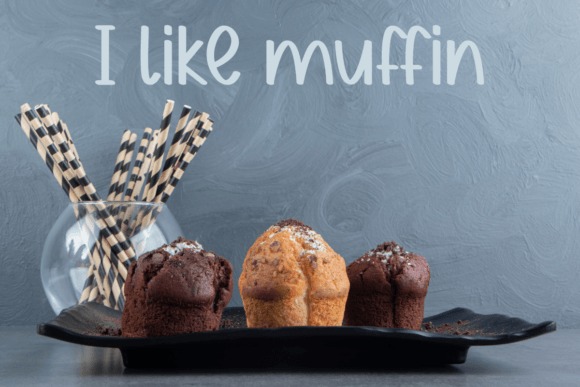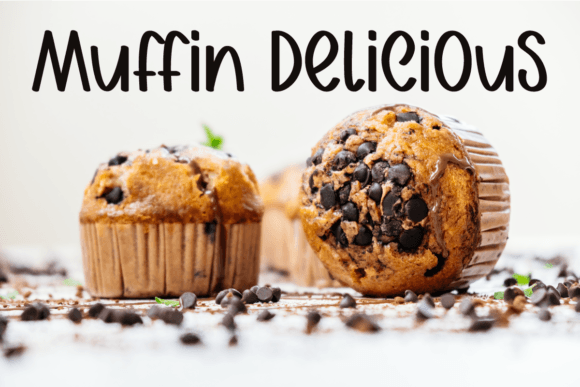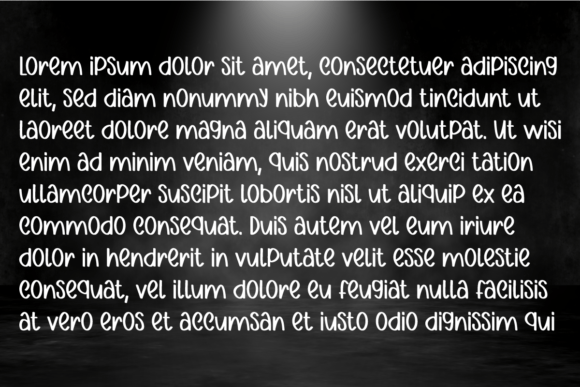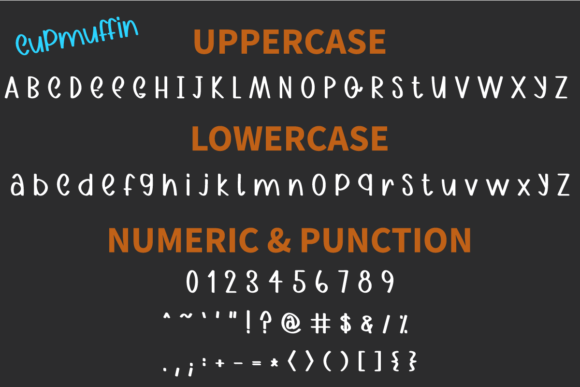
Cupmuffin Font: The Ultimate Choice for Fun and Friendly Designs
Are you tired of using the same old fonts in your designs? Look no further than Cupmuffin, a fun and friendly handwritten font that’s sure to brighten up any project. With its whimsical and quirky style, Cupmuffin is the perfect choice for designers and crafters who want to add a touch of personality to their work.
The Characteristics of Cupmuffin Font
Cupmuffin is a handwritten font that’s full of character. Its fun and friendly style makes it perfect for a wide range of design projects, from logos and wedding invitations to quotes, advertisements, and more. The font’s whimsical and quirky nature gives it a unique personality that’s sure to stand out in any design.
One of the key characteristics of Cupmuffin is its versatility. This font can be used in a variety of contexts, from formal to informal, and can be paired with a range of other design elements to create a unique look. Whether you’re designing a logo, a brochure, or a social media post, Cupmuffin is a great choice.
The Benefits of Using Cupmuffin Font
So why choose Cupmuffin for your design projects? Here are just a few benefits of using this fun and friendly font:
- Unique and eye-catching: Cupmuffin’s whimsical and quirky style makes it a standout in any design. Its unique character will grab the attention of your audience and leave a lasting impression.
- Versatile: Cupmuffin can be used in a wide range of design projects, from formal to informal. Its versatility makes it a great choice for designers who want a font that can adapt to different contexts.
- Easy to read: Despite its playful style, Cupmuffin is easy to read and understand. This makes it a great choice for designs that require a clear and concise message.
- Customizable: Cupmuffin can be customized to fit your design needs. Whether you want to change the color, size, or style, this font is easy to work with.
Ideal Uses for Cupmuffin Font
Cupmuffin is a versatile font that can be used in a wide range of design projects. Here are some ideal uses for this fun and friendly font:
- Logos: Cupmuffin’s unique and eye-catching style makes it a great choice for logos. Its whimsical nature will help your brand stand out and leave a lasting impression.
- Wedding invitations: Cupmuffin’s playful and romantic style makes it a great choice for wedding invitations. Its elegant and sophisticated nature will add a touch of personality to your wedding stationery.
- Quotes and posters: Cupmuffin’s fun and friendly style makes it a great choice for quotes and posters. Its easy-to-read nature will ensure that your message is clear and concise.
- Advertisements: Cupmuffin’s attention-grabbing style makes it a great choice for advertisements. Its unique and eye-catching nature will help your ad stand out in a crowded market.
- Print and magazines: Cupmuffin’s versatile style makes it a great choice for print and magazine designs. Its easy-to-read nature will ensure that your content is clear and concise.
Tips for Using Cupmuffin Font
Here are some tips for using Cupmuffin font in your design projects:
- Pair it with other fonts: Cupmuffin can be paired with other fonts to create a unique look. Try pairing it with a bold font for a striking contrast.
- Use it in moderation: While Cupmuffin is a fun and friendly font, it’s best to use it in moderation. Use it for headings or titles, and a more formal font for body text.
- Experiment with colors: Cupmuffin can be used in a range of colors to create a unique look. Experiment with different colors to find the one that works best for your design.
| Font Name | Cupmuffin Font |
Cupmuffin font is a fun and friendly handwritten font that’s perfect for designers and crafters who want to add a touch of personality to their work. Its whimsical and quirky style makes it a standout in any design, and its versatility makes it a great choice for a wide range of projects. Whether you’re designing a logo, a brochure, or a social media post, Cupmuffin is a great choice. So why not give it a try and see the difference it can make in your designs?